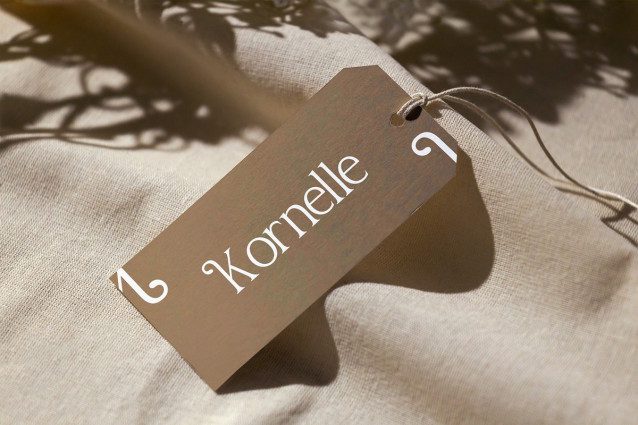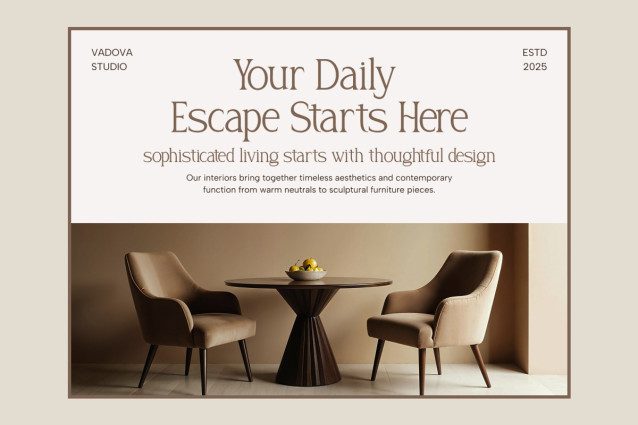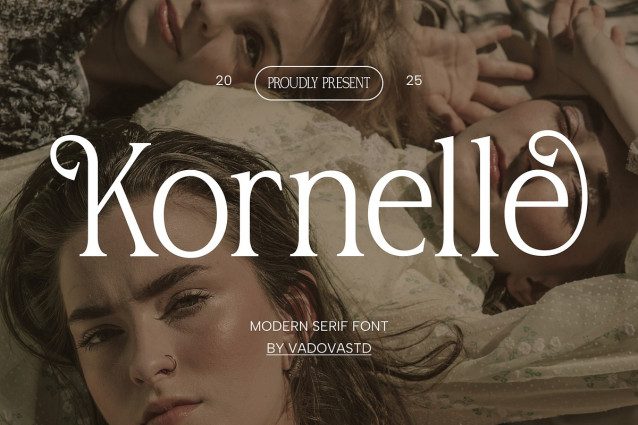
Kornelle Font
Kornelle Font is a modern serif font with sophisticated curves and sharp, clean lines that create a luxurious and timeless aesthetic. Its elegant design and balanced letterforms make it ideal for projects that require a refined, high-end look. Perfect for editorial design, branding, and creative campaigns, Kornelle offers both classic charm and modern flair, ensuring your message is delivered with style and grace.
Whether you’re working on a fashion campaign, luxury brand, or editorial layout, Kornelle adds an elegant touch to every project with its distinctiveness and readability.